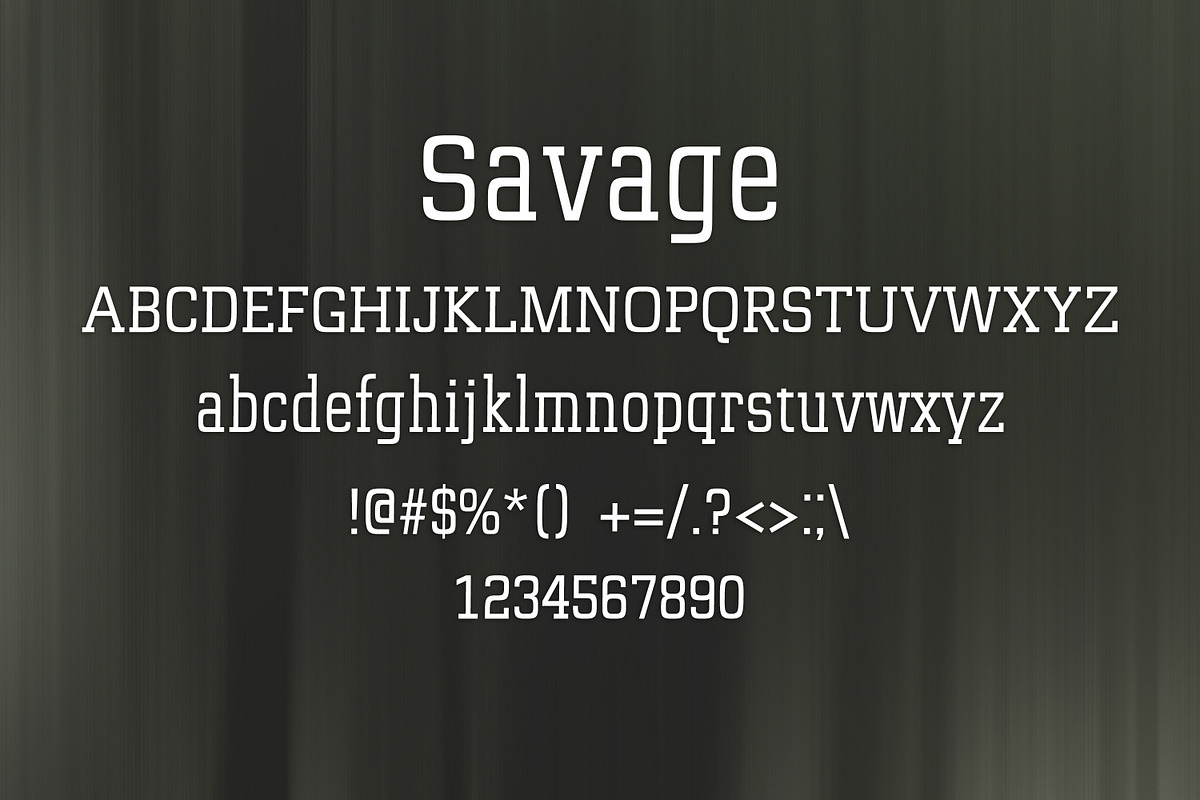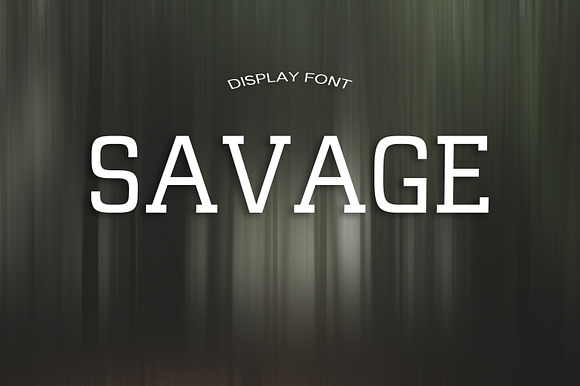
SAVAGE font
- Savage regular
Why SAVAGE font is worth a look
SAVAGE font by DmDesignsStoreArt fits naturally into Branding, posters, packaging, typography.